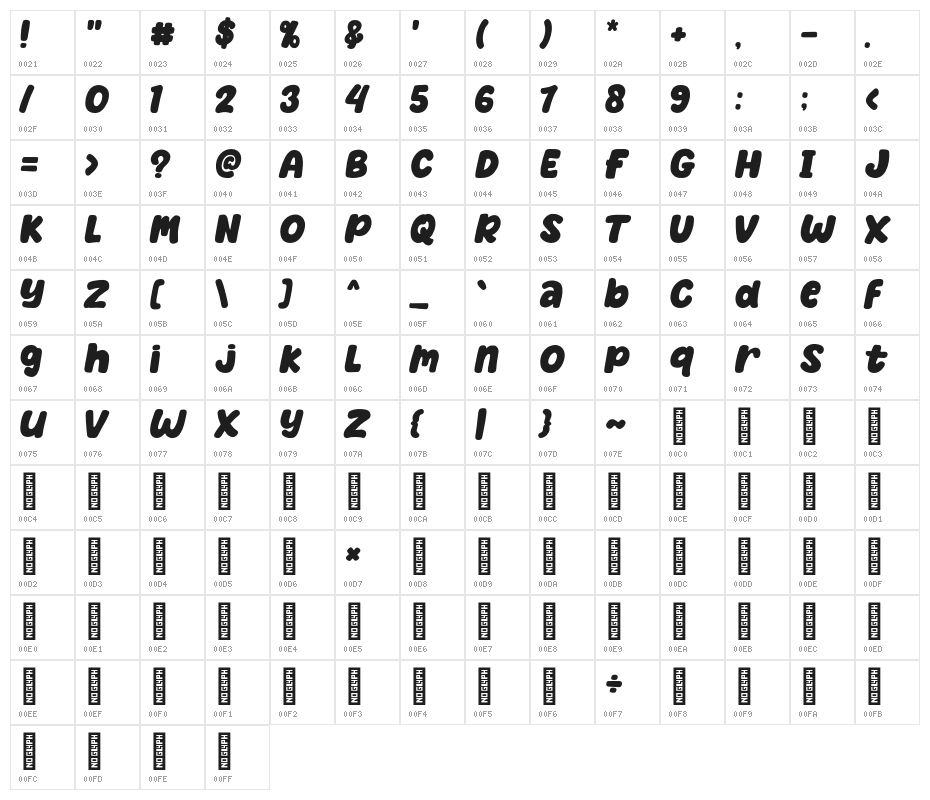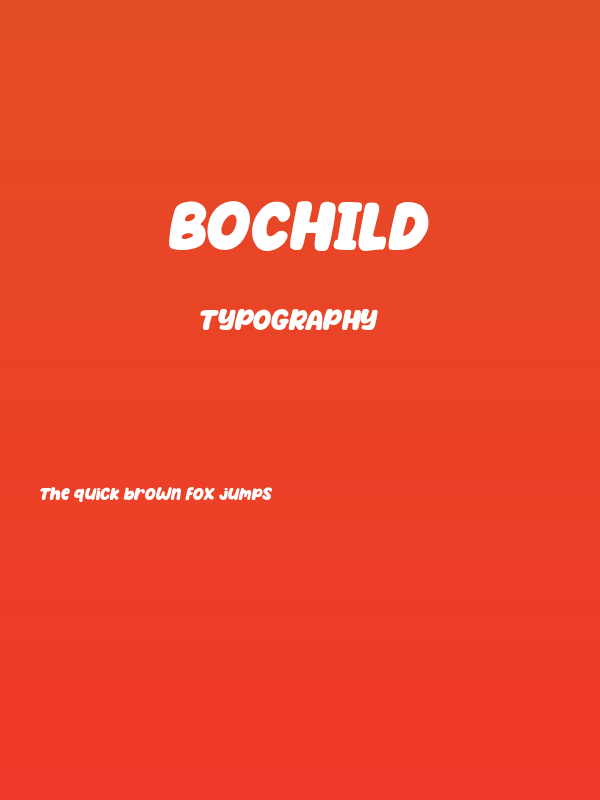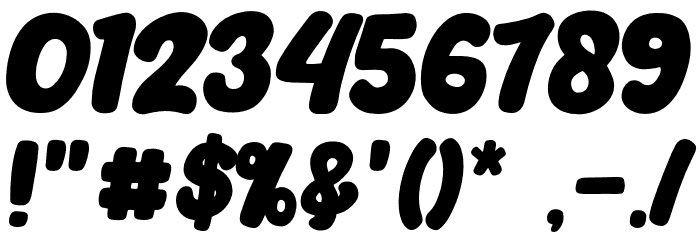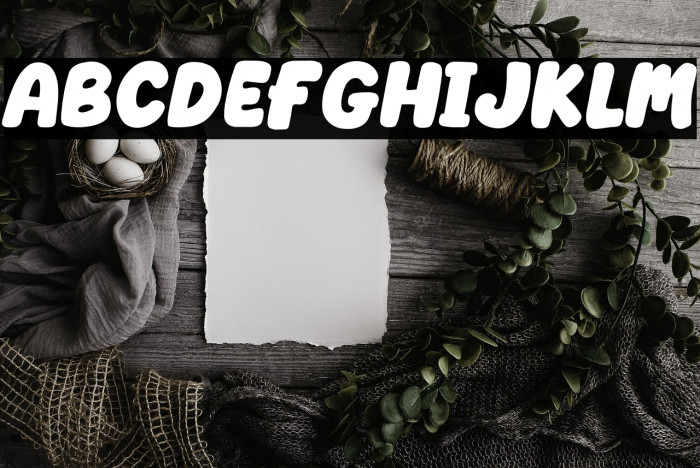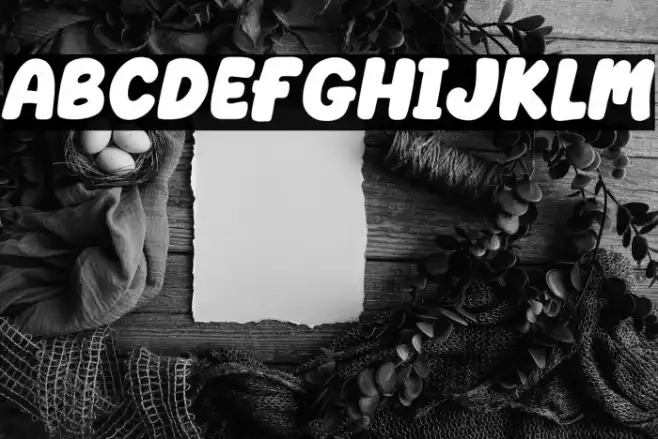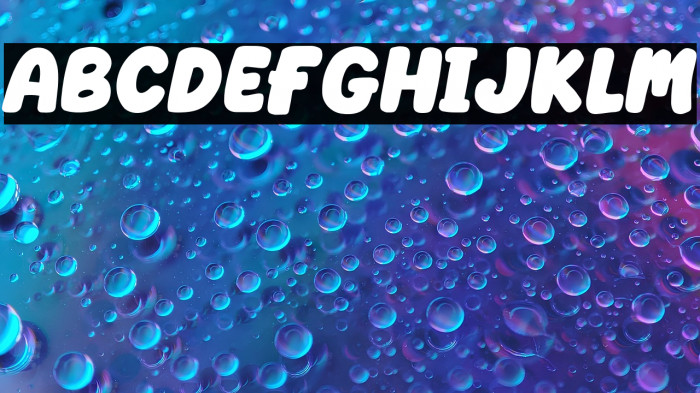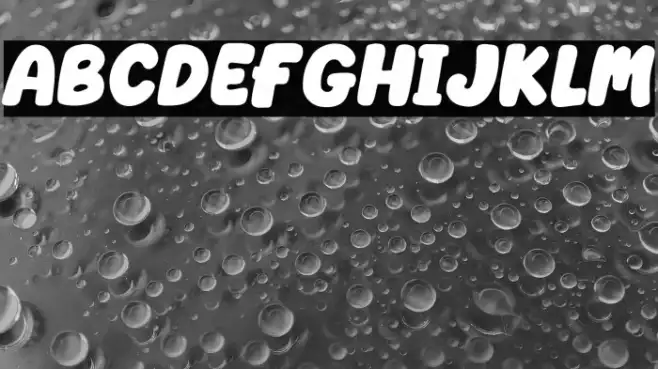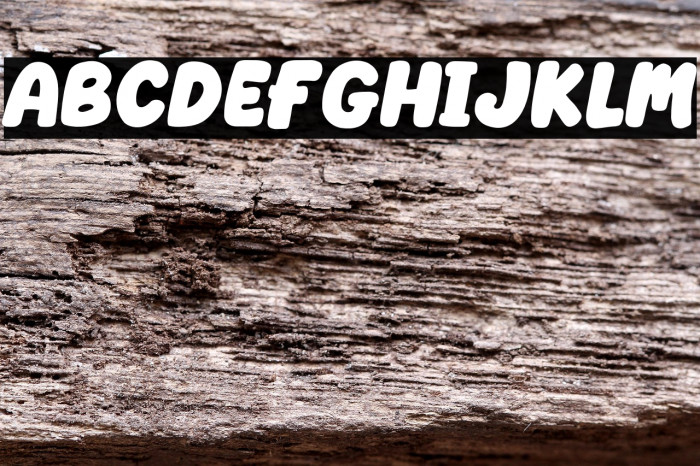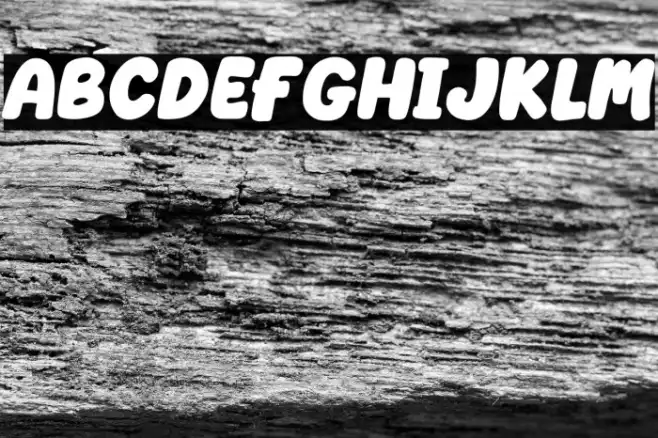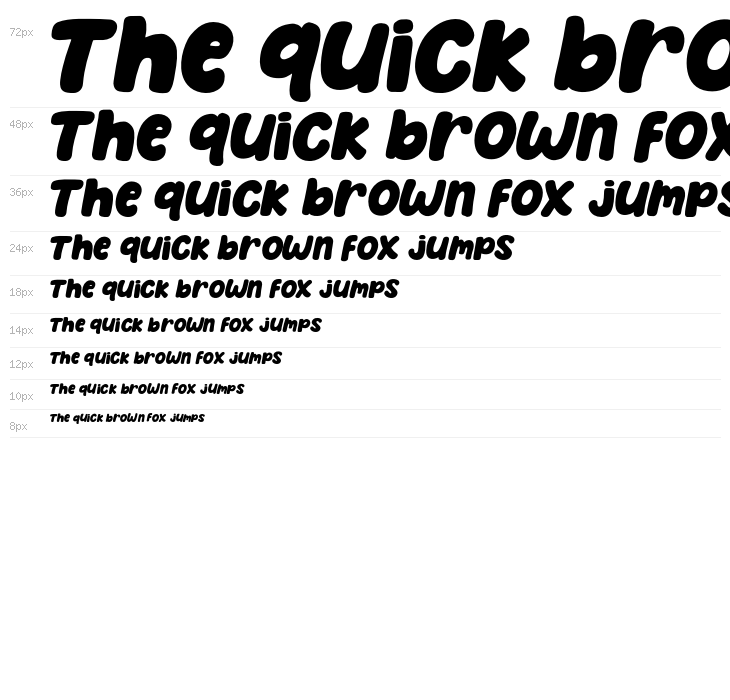
Bochild Font
Bochild Description
This playful and bold font features rounded, bubbly characters that convey a sense of fun and approachability. The letters are thick and have a consistent stroke width, giving them a solid and robust appearance. The rounded edges and lack of sharp angles contribute to a friendly and informal style. This font is highly legible, with each character distinctly separated, making it suitable for various creative applications. The numbers and special characters maintain the same playful aesthetic, ensuring a cohesive look across all text elements. Its unique style makes it stand out, perfect for projects that require a touch of whimsy and creativity.
| Overall Style | Playful, Fun |
| Proposed Projects | Ideal for children's books, playful branding, party invitations, and casual social media graphics. |